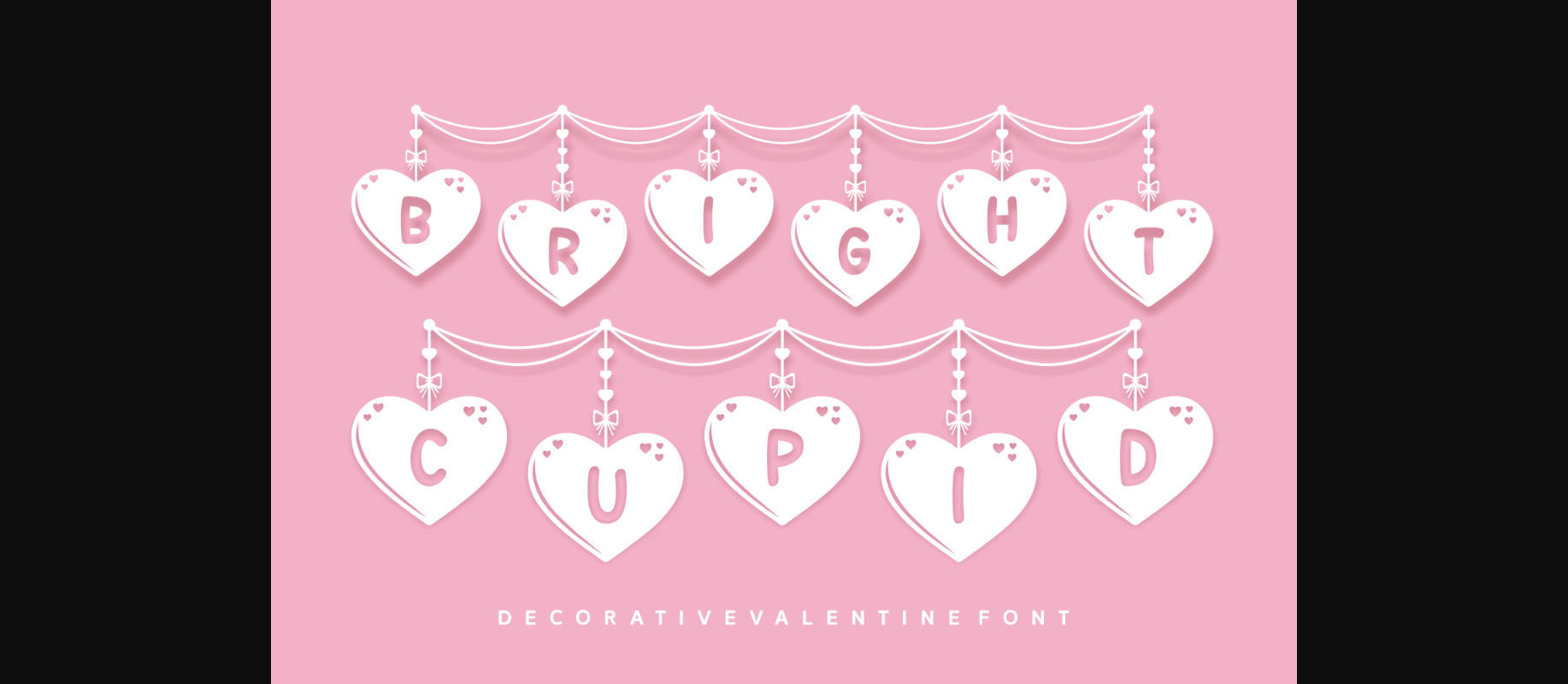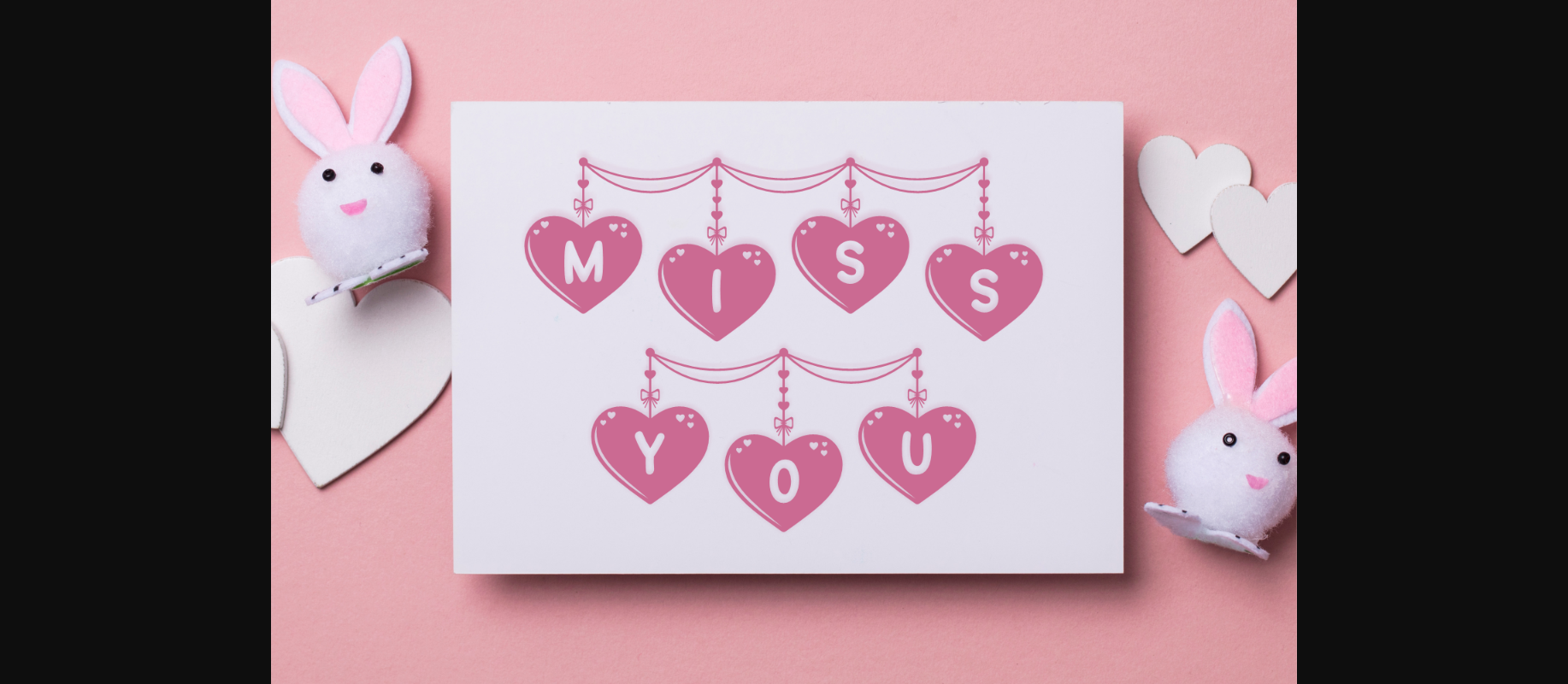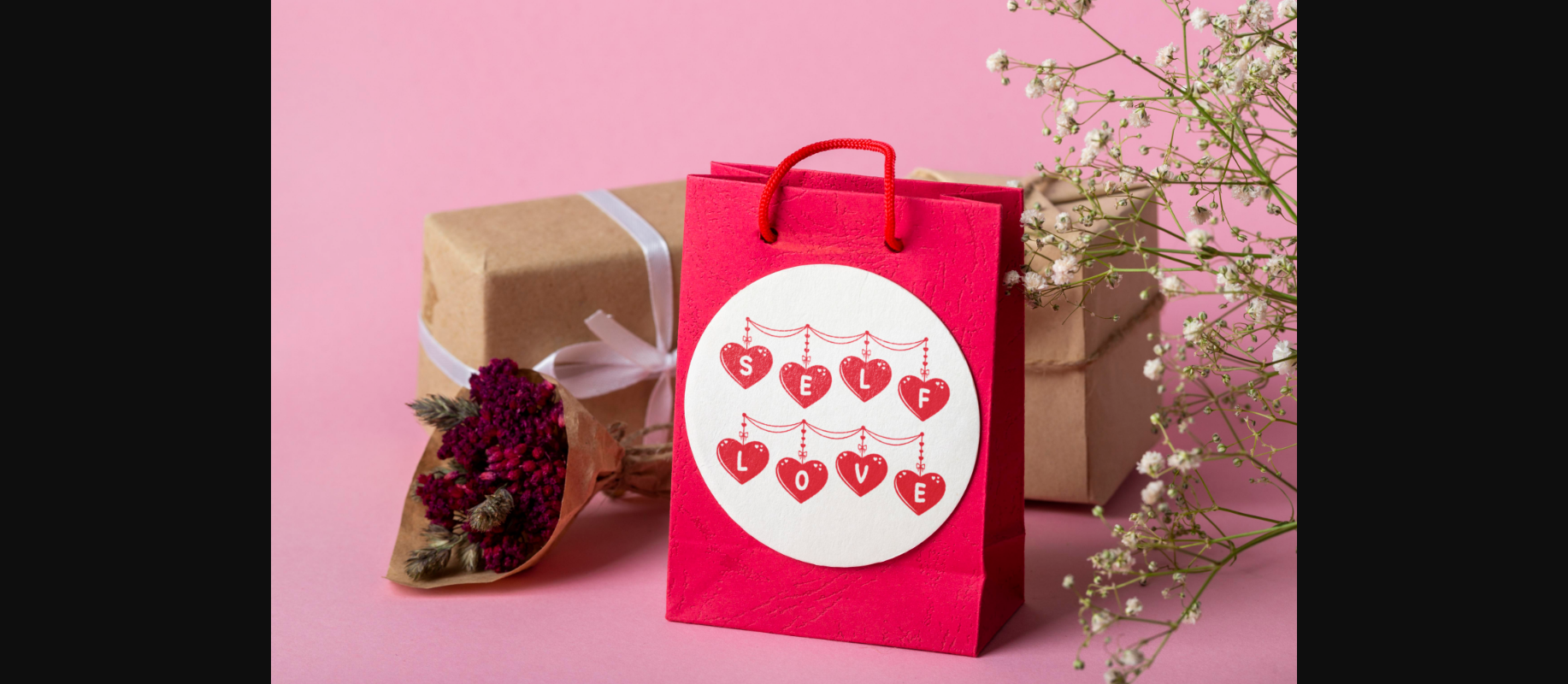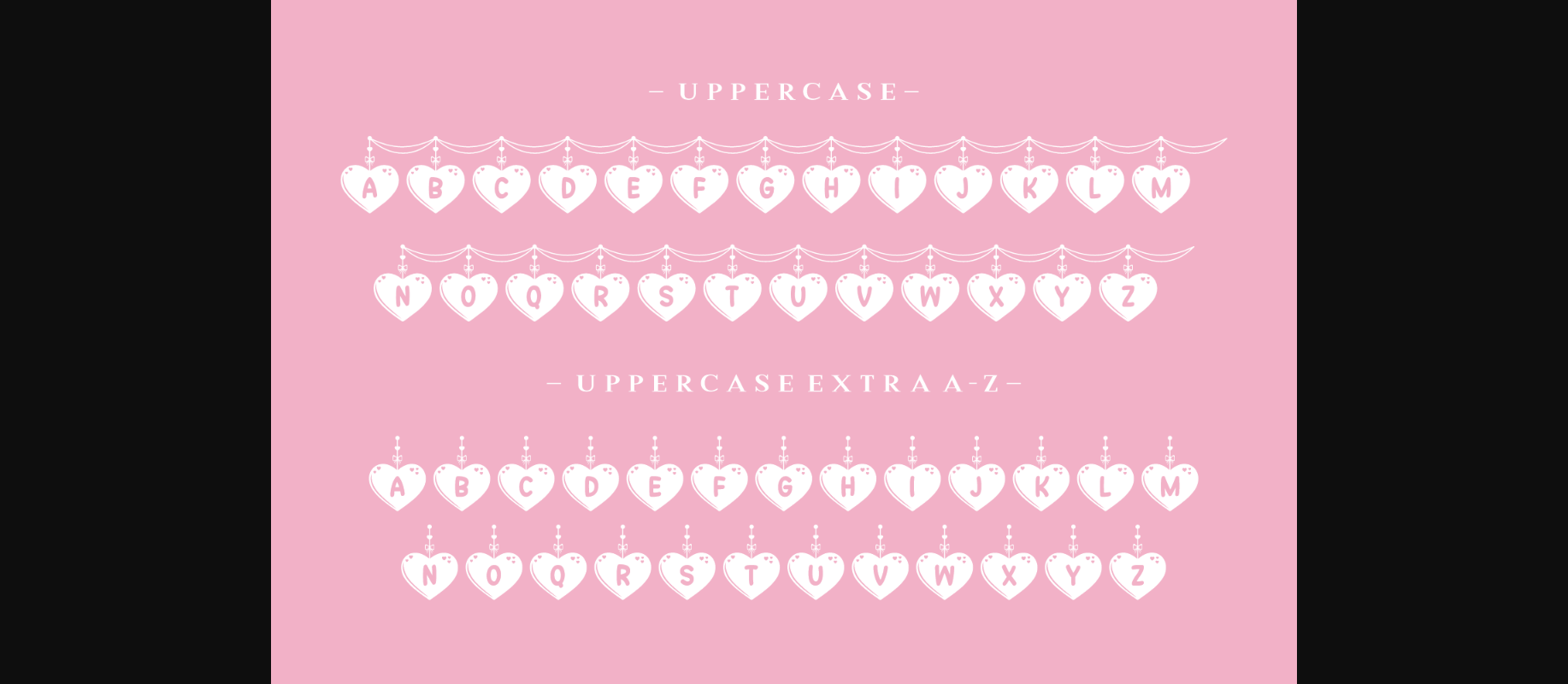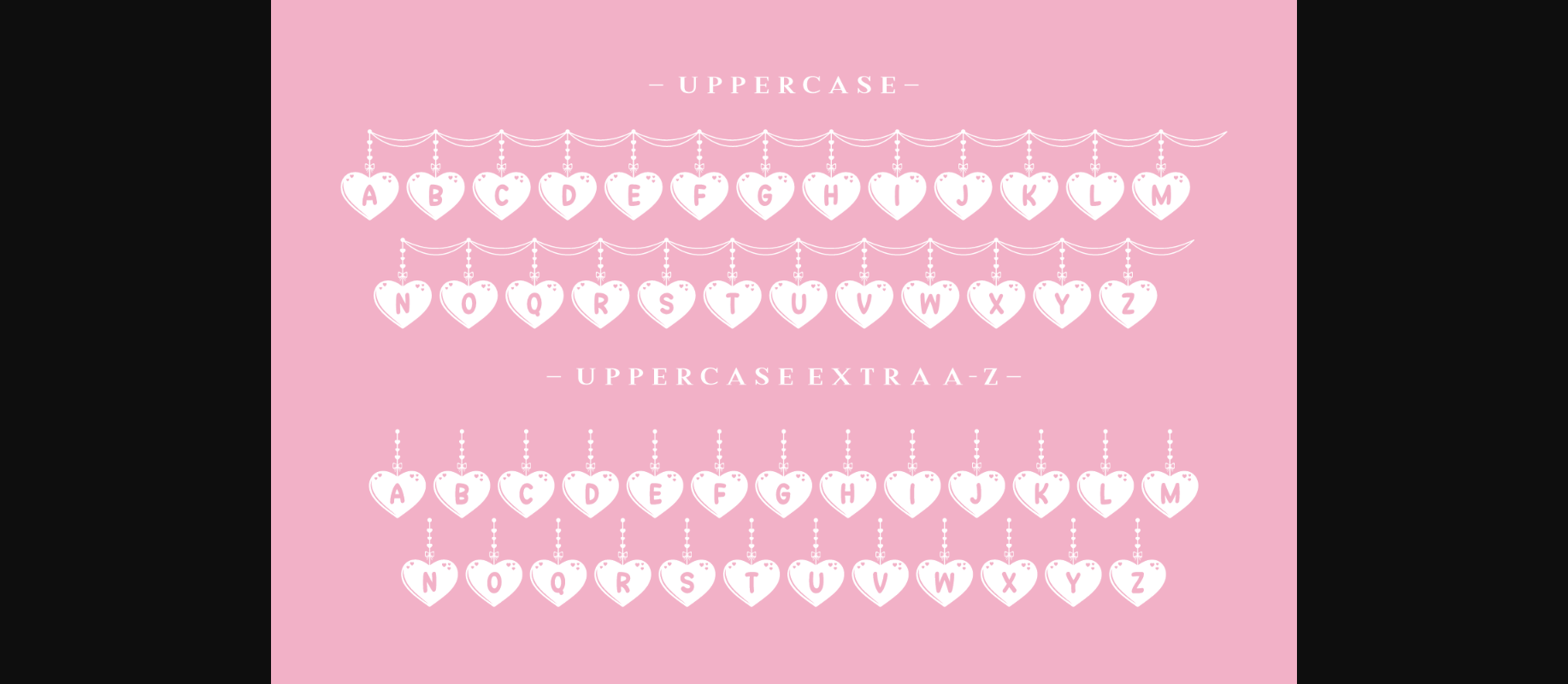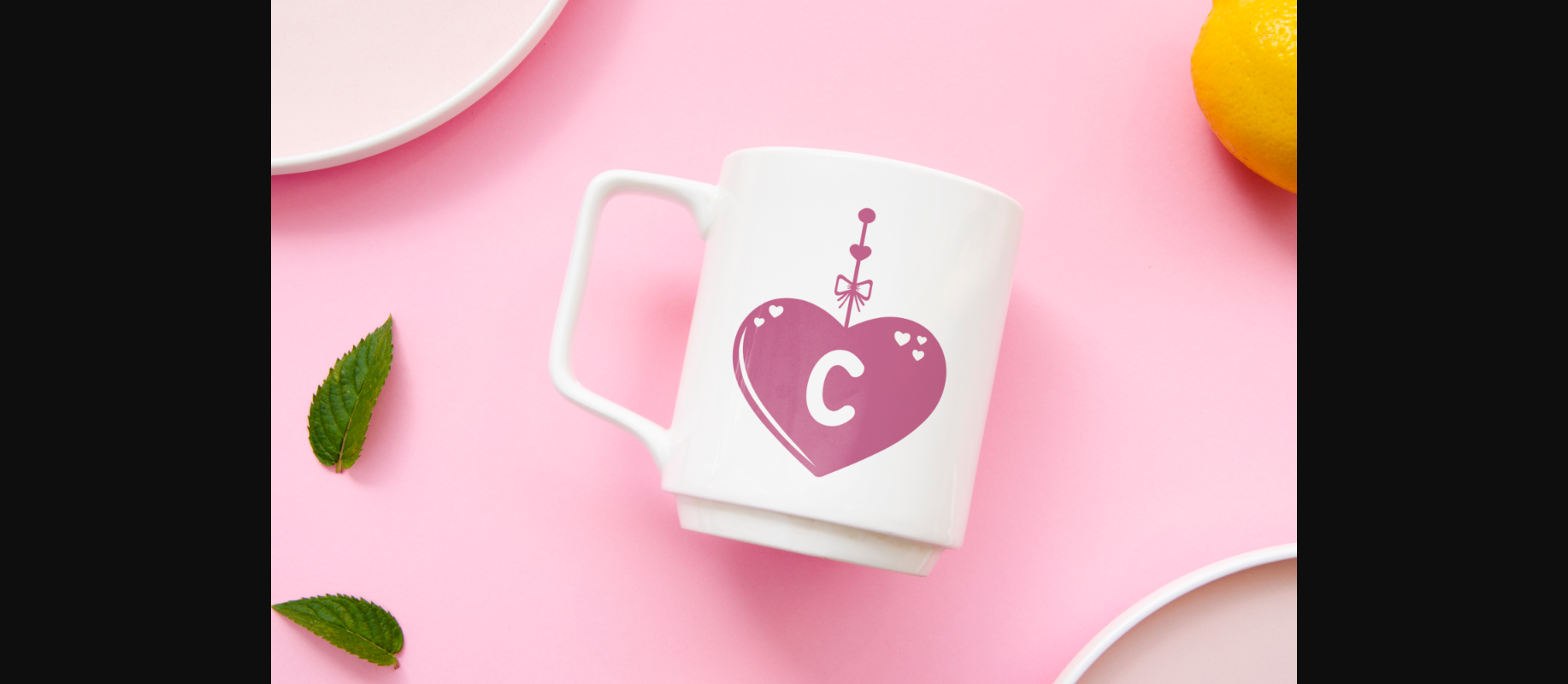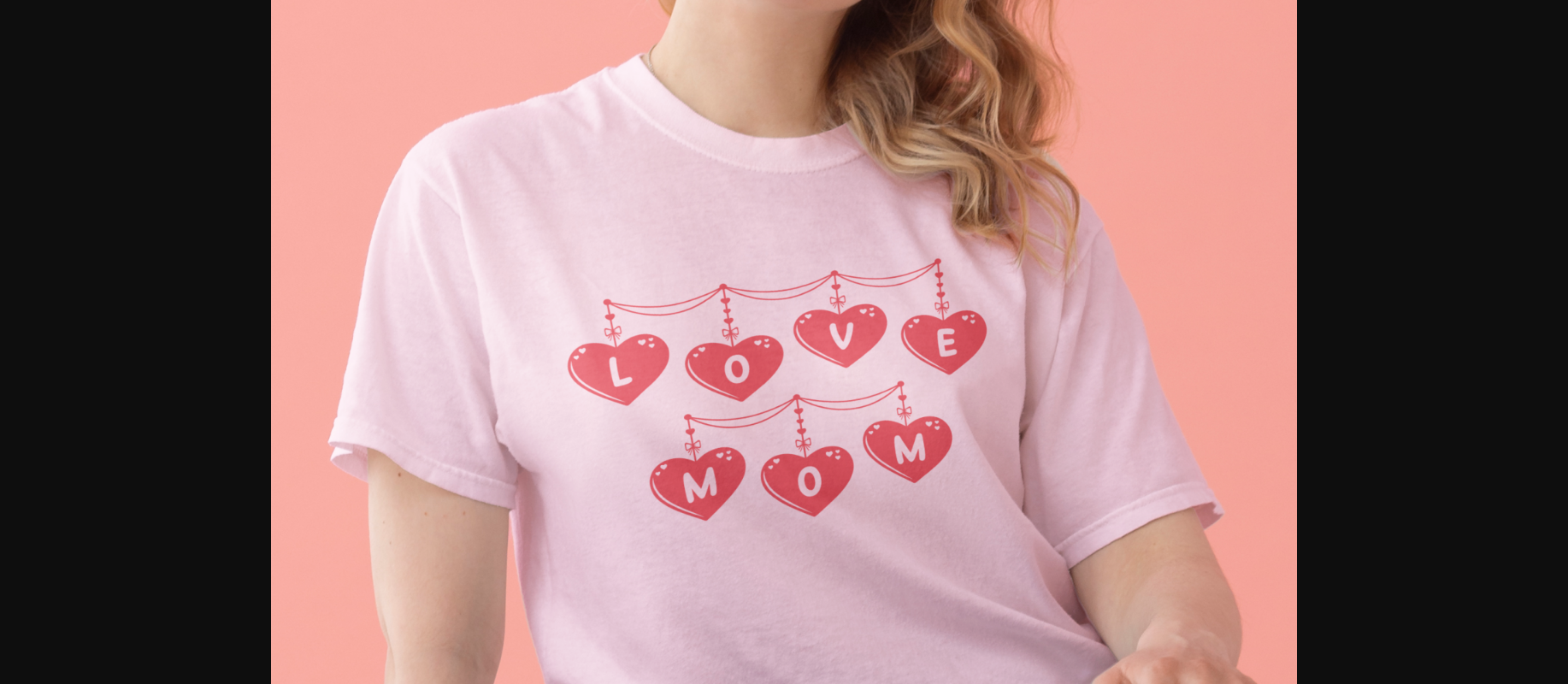
Bright Cupid Font
About Bright Cupid Font
Bright Cupid is a playful and decorative font that turns each letter into a delightful heart shape. This charming typeface adds a touch of love and whimsy to your projects. Perfect for creating eye-catching designs with a sweet and joyful vibe, Bright Cupid is an ideal choice for anything that could use a dash of heartfelt creativity – from cards and invitations to playful signage. Let your text speak in the language of love with the endearing and fun touch of Bright Cupid.